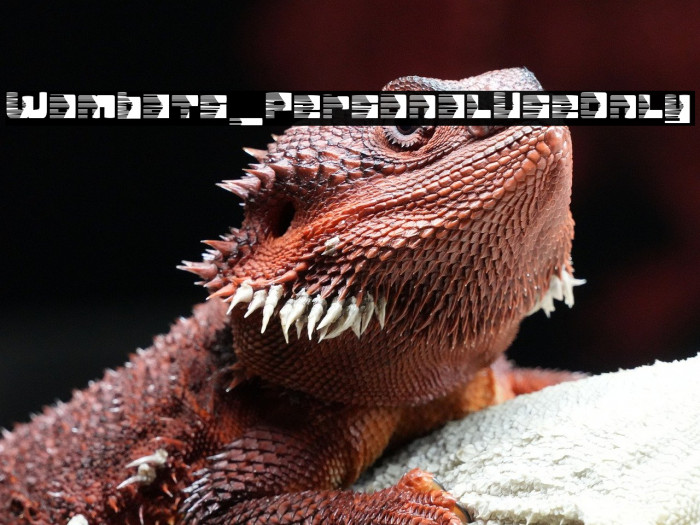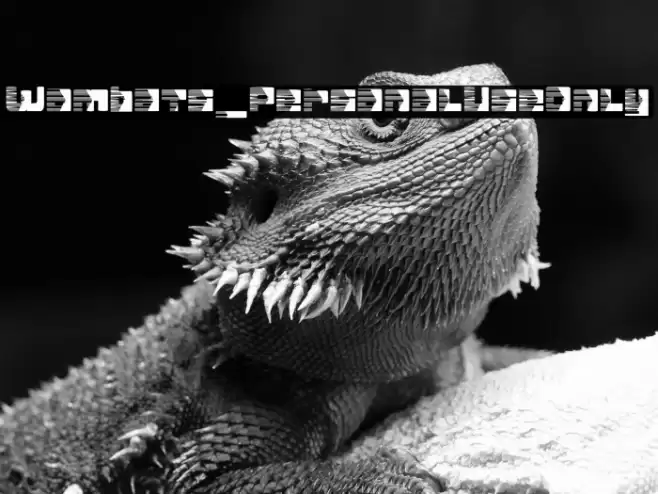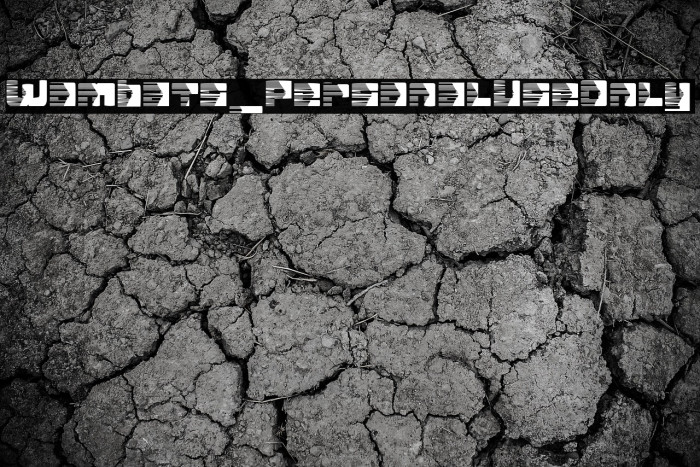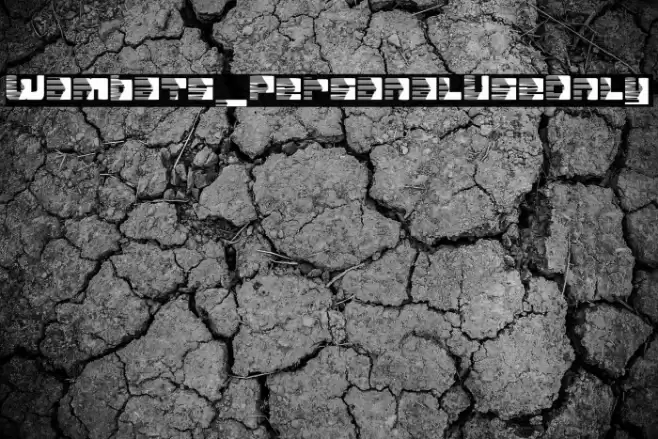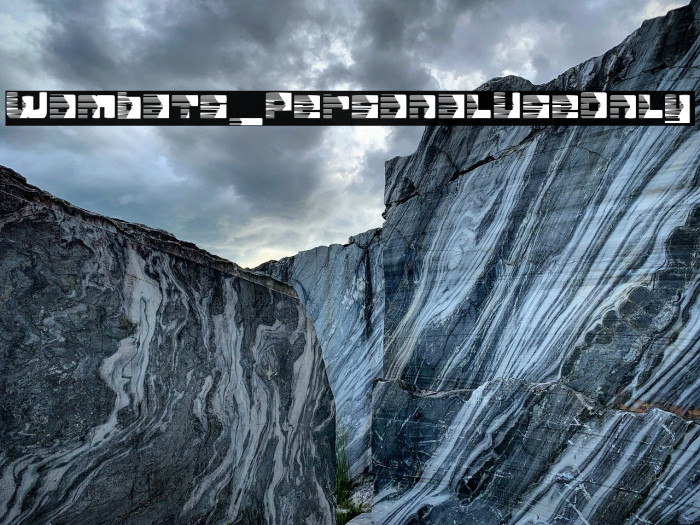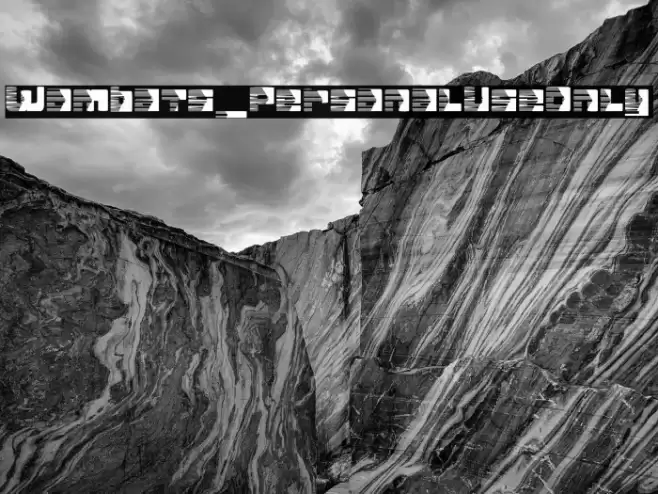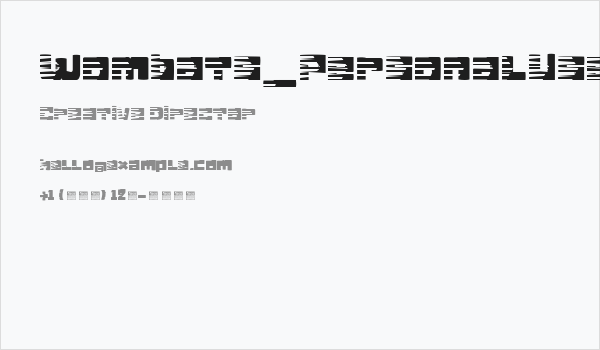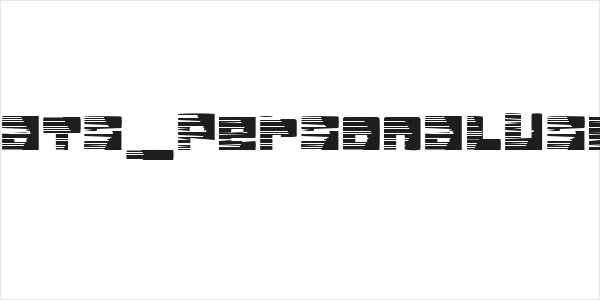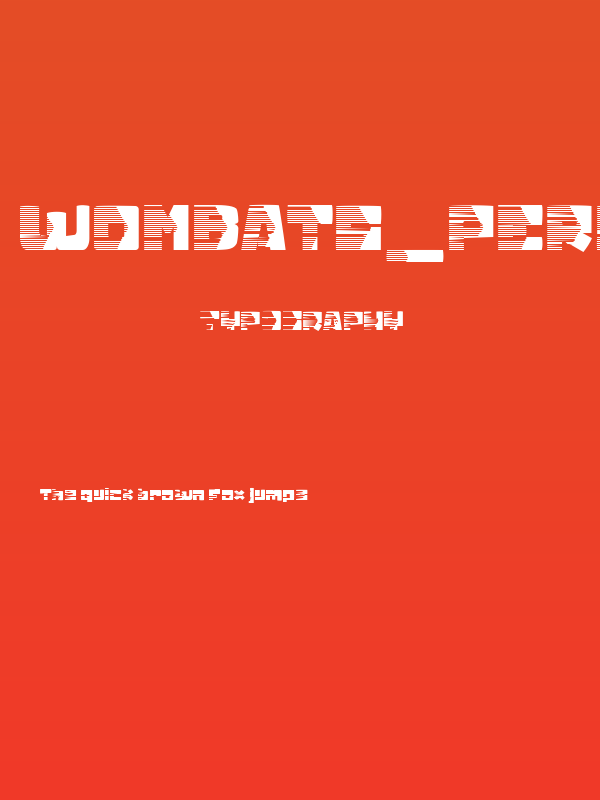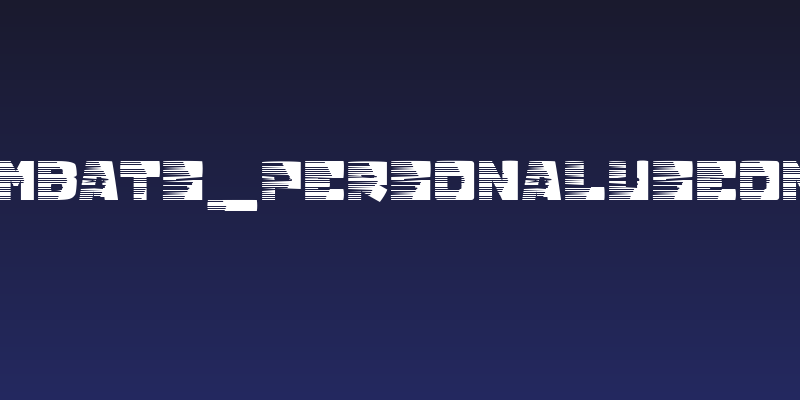
Wombats_PersonalUseOnly Font
Wombats_PersonalUseOnly Description
This font features a bold, geometric design with a unique striped pattern running horizontally across each character. The letters are constructed with solid black shapes interspersed with thin white lines, creating a striking visual effect. The uppercase and lowercase letters maintain a consistent style, with angular edges and a modern, futuristic appearance. The numbers and special characters follow the same design principles, ensuring a cohesive look across all elements. This font's distinct style makes it ideal for projects that require a bold and eye-catching typeface.
| Proposed Projects | Ideal for posters, album covers, branding, and any project requiring a bold, modern typeface. |